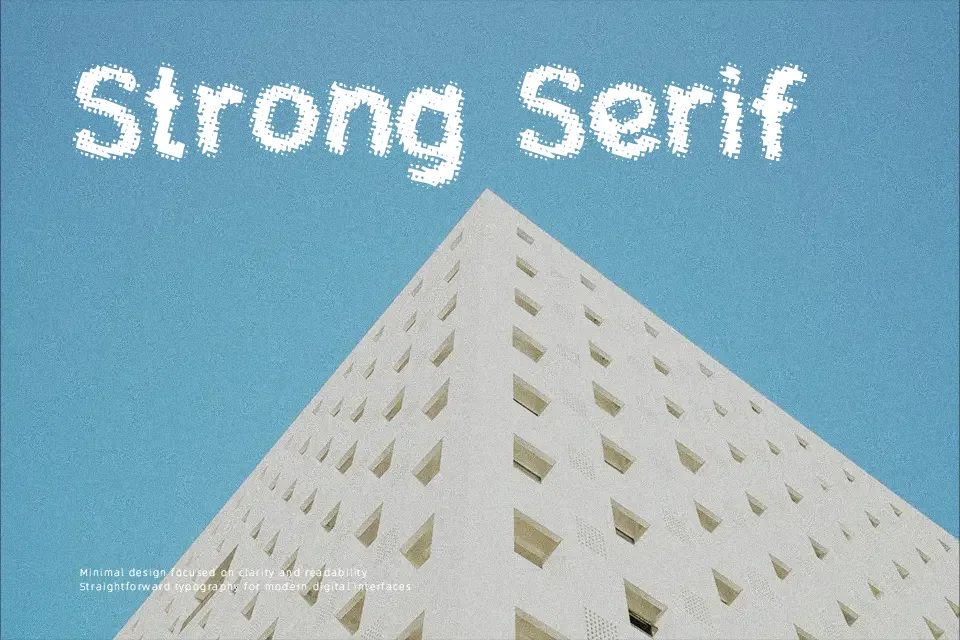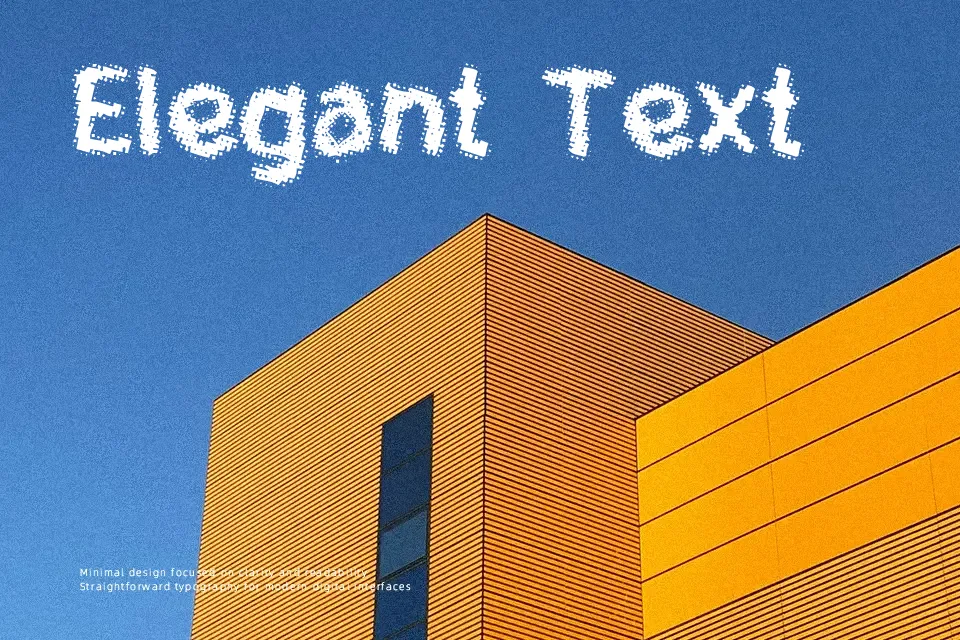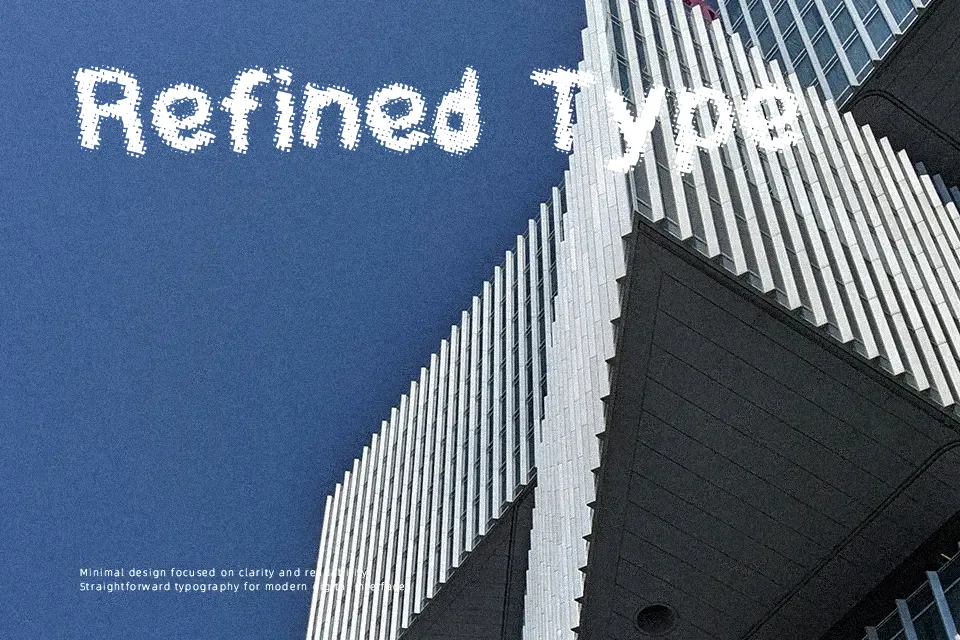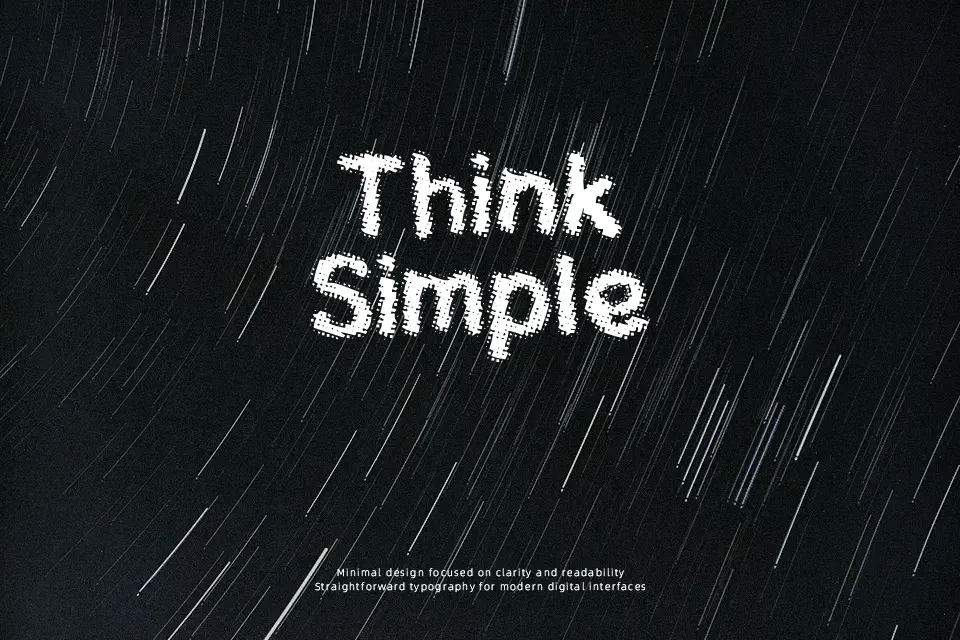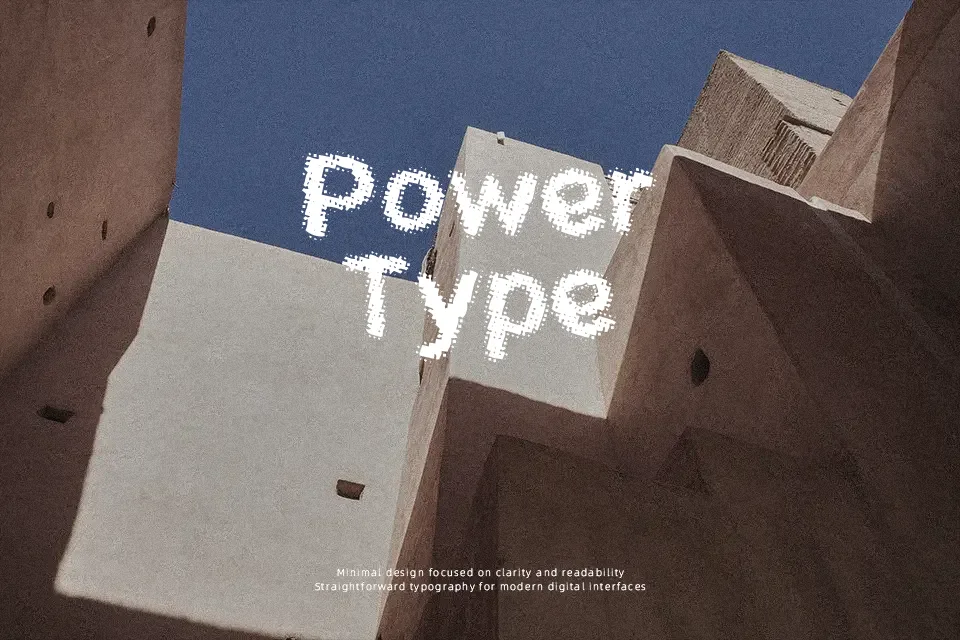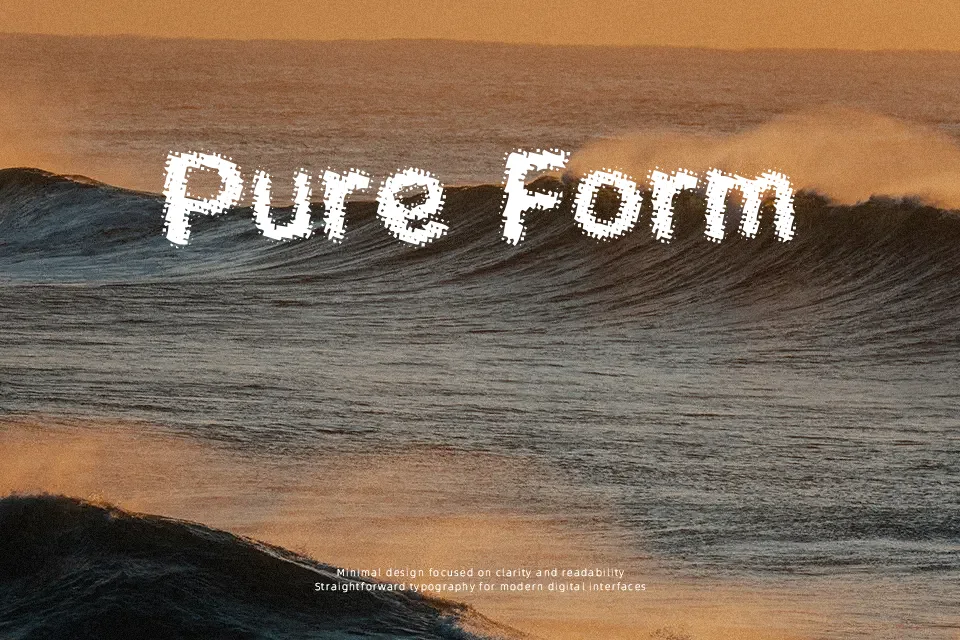
Rita Font
Designed by adreson
Rita Font is a distorted display typeface featuring highly textured letterforms and uneven stroke weights. The design uses erratic contours and deliberate distressing to create a raw, eroded aesthetic. Its somewhat tight character spacing maintains visual density in large formats, while the slightly condensed proportions emphasize the chaotic strokes. The letterforms remain easy to distinguish in short headlines, making the typeface highly effective for music festival posters and street fashion graphics. However, the decorative details become less effective at smaller sizes, which severely reduces overall legibility. Consequently, this design is completely unsuitable for long paragraph text or dense editorial layouts requiring comfortable continuous reading.
skateboarding apparel graphics
alternative band album covers
rebel-themed packaging design
corporate business cards
Perfect for fashion, headline, and music, with a dark and decorative style.